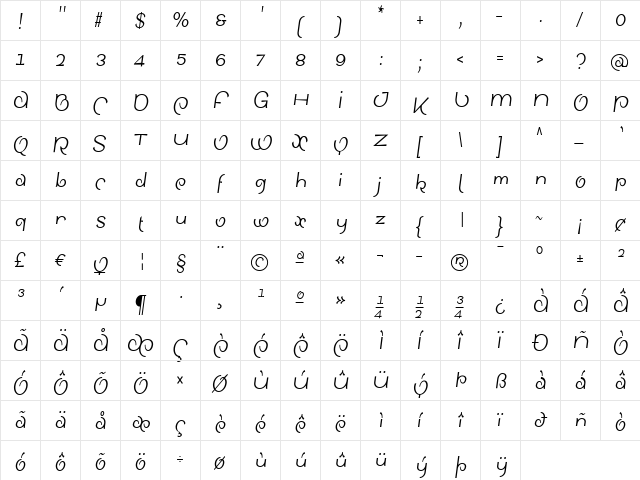
SinahSans LT Condensed Italic Font Preview
| Style | Condensed Italic |
| Foundry | Linotype Library GmbH or its affiliated companies |
Design Context for SinahSans LT Typeface
SinahSans LT is a composed and adaptable typeface that performs quietly and consistently across a wide range of design contexts. The dynamic lean of this cut emphasises speed and emphasis in any layout. The delicate stroke weight brings airiness and refinement to layouts. Its narrow stance lets it pack a punch even in space-constrained designs.
Pro Tip: Try SinahSans LT for annotation and caption copy alongside an upright companion — the contrast in angle creates a dynamic but ordered typographic system.